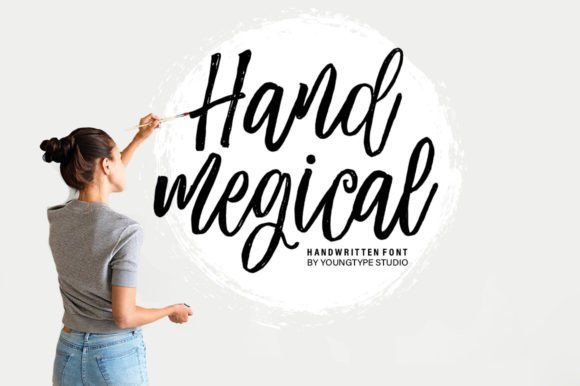
Unlocking the Power of Handwritten Charm
Have you ever sat down with a blank sheet of paper and a pen, feeling the rush of creativity as the words begin to flow? For many of us, this moment is when the magic happens – when our ideas take shape and our imagination knows no bounds. But what if you could capture that same essence in a digital format, without sacrificing the unique personality of your handwriting?
Enter the Hand Megical Font, a modern font set that embodies the organic, dynamic, and energetic style of handwritten text. Designed to be versatile and adaptable, Hand Megical Font can be used for a wide range of applications, from titles and signatures to logos and correspondence. With its PUA encoding, accessing the amazing glyphs and ligatures is a breeze, making it a valuable addition to any designer’s toolkit.
Key Features of Hand Megical Font
- Font Family: Hand Megical Font is a unique, handwritten font family that includes multiple styles and weights.
- Size: The font family includes multiple sizes, ranging from 8pt to 120pt, making it suitable for various design applications.
- Resolution: Designed for high-resolution displays, the font family is optimized for use at 300 DPI and above.
- Unique Characteristics: Hand Megical Font features a unique blend of organic and geometric elements, creating a distinctive and eye-catching aesthetic.
- Style Variations: The font family includes multiple styles, including regular, bold, italic, and bold-italic, allowing for a wide range of creative possibilities.
Hand Megical Font Review
I was excited to dive into the world of “Hand Megical Font” and see what it has to offer. Upon initial impressions, I found some aspects that really shine ✨.
- Unique Character**: The font has a distinct, whimsical feel that’s perfect for creative projects and adding a touch of personality to your design.
- Variety of Styles**: The font comes in a range of weights and styles, making it easy to experiment and find the perfect fit for your project.
- Customization Options**: The font offers some great customization options, such as ligatures and contextual alternates, which can help you achieve a more polished look.
However, there are some limitations that I noticed ⚠️:
- Limited Legibility**: At smaller font sizes, the letters can become difficult to read, making it essential to use the font in larger sizes or with careful typography.
- Not Ideal for Body Text**: Due to its unique character and limited legibility, I wouldn’t recommend using “Hand Megical Font” for body text or large blocks of text.
Overall, I’d say “Hand Megical Font” is a great choice for projects that require a touch of whimsy and creativity. While it may not be suitable for all types of projects, it’s definitely worth considering for the right kind of design.
Hand Megical Font is a versatile font that can be used in a variety of design projects. Some common use cases include:
Remember to use the font in context and with a clear visual hierarchy to maximize its effectiveness.
Alternatives to “Hand Megical Font” for Designers
Pacifico is a beautiful, elegant script font that’s perfect for adding a touch of sophistication to your designs. It’s great for use in headings, logos, and other text elements where you want to convey a sense of luxury and refinement. Compared to Hand Megical Font, Pacifico has a more refined and polished feel, making it ideal for high-end branding and design projects.
Great Vibes is a modern script font that’s designed to evoke a sense of playfulness and creativity. It’s perfect for use in headings, titles, and other text elements where you want to add a touch of whimsy and personality. Compared to Hand Megical Font, Great Vibes has a more dynamic and energetic feel, making it ideal for use in social media graphics, advertisements, and other promotional materials.
Carolyna Pro is a high-end script font that’s designed to add a touch of elegance and sophistication to your designs. It’s perfect for use in headings, logos, and other text elements where you want to convey a sense of luxury and refinement. Compared to Hand Megical Font, Carolyna Pro has a more refined and polished feel, making it ideal for high-end branding and design projects.